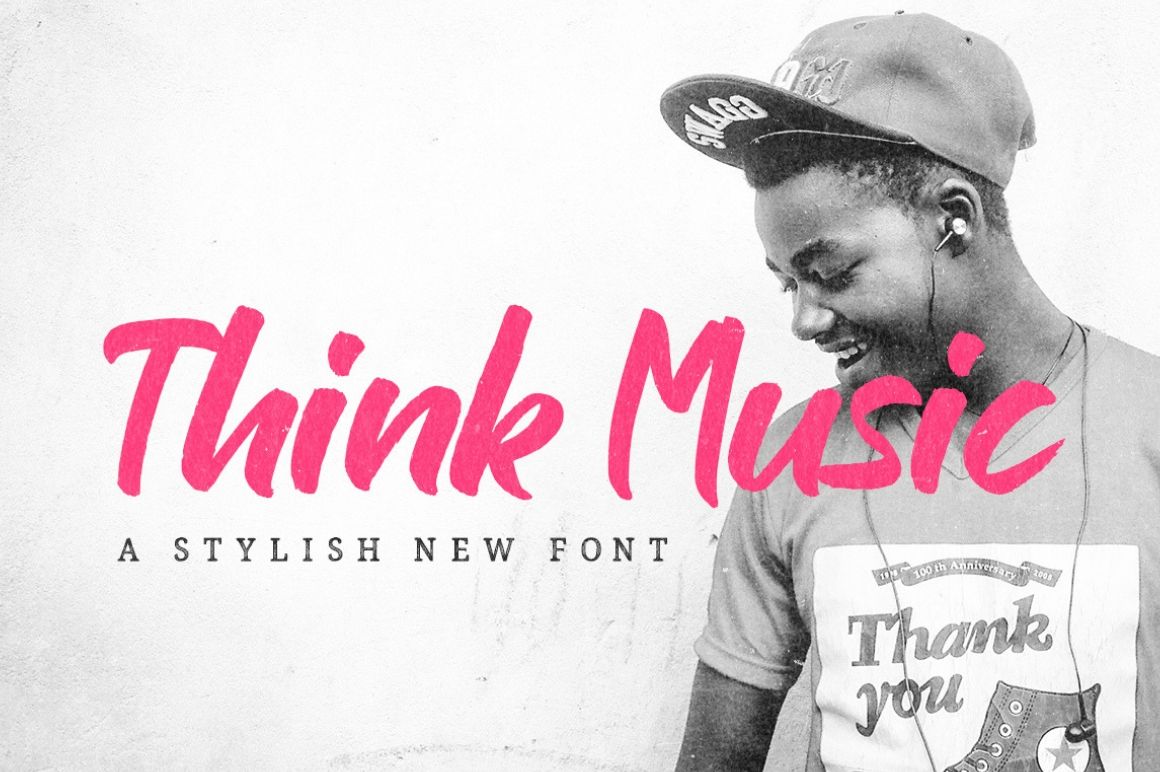
• Thick Brush Script Font - Inspired by chunky scripts
Think Music Script Font!
Think Music is a thick brush font inspired by the chunkier scripts. This melodious script font is ideal for company logos, greetings, invitations, branding, posters, flyers, book covers, quotes, and more.
• Thick Brush Script Font
Preview Of The Think Music Script Font:
Stylish Think Music Script Font Freebie
"love more worry less" text written on a landscape image of a man using the Think Music Script Font Freebie
"A life without music is a life without soul" text written on an image of a girl with a piano using the Think Music Script Font Freebie
"dance your life away tonight" text written on a pink background using the Think Music Script Font Freebie
"dream" clothing inc. banner designed using the Think Music Script Font Freebie
special characters included in the Think Music Script Font Freebie